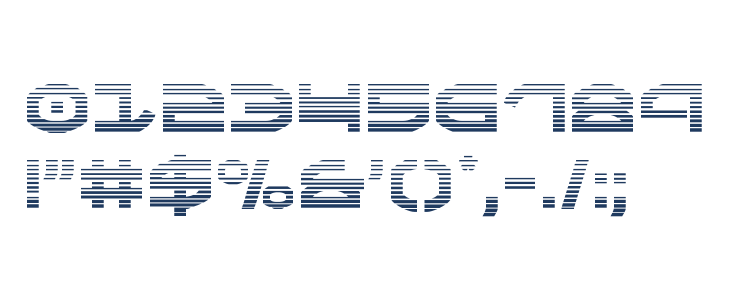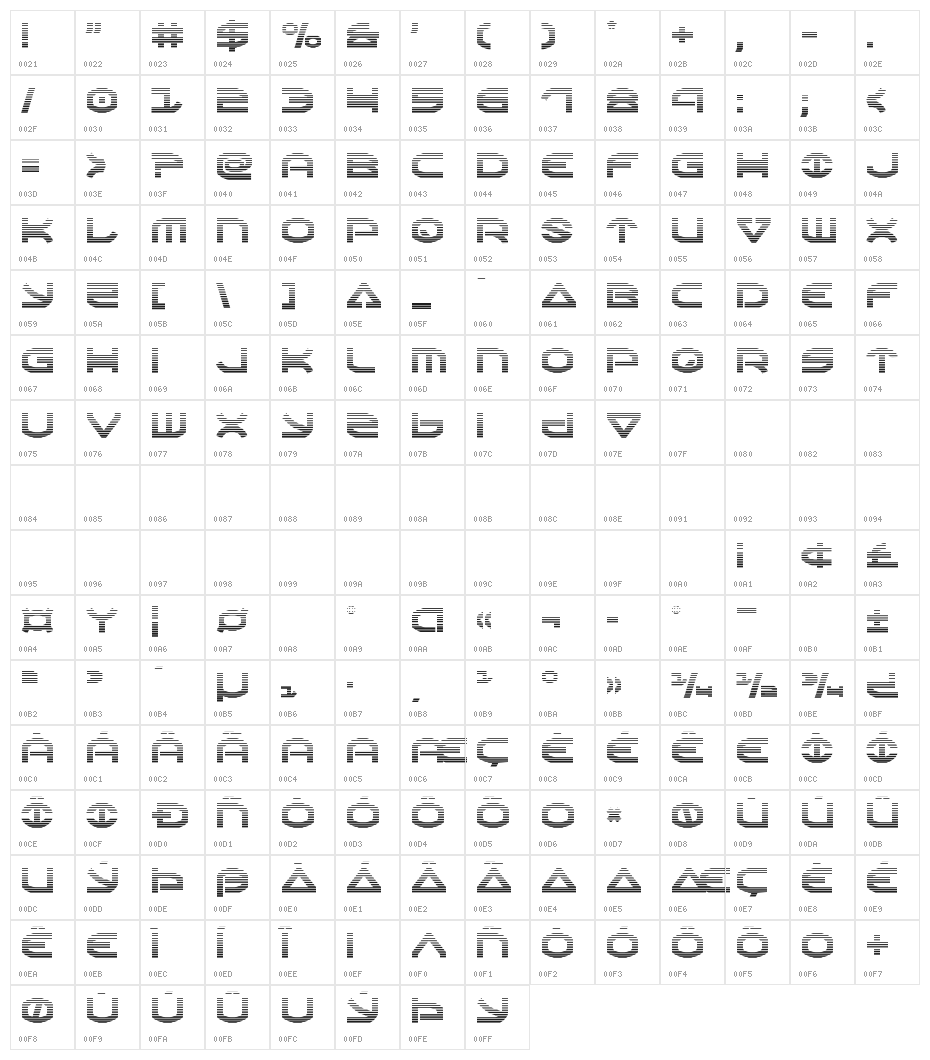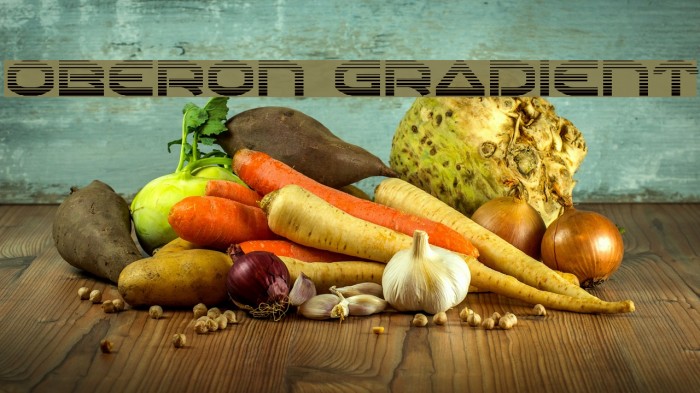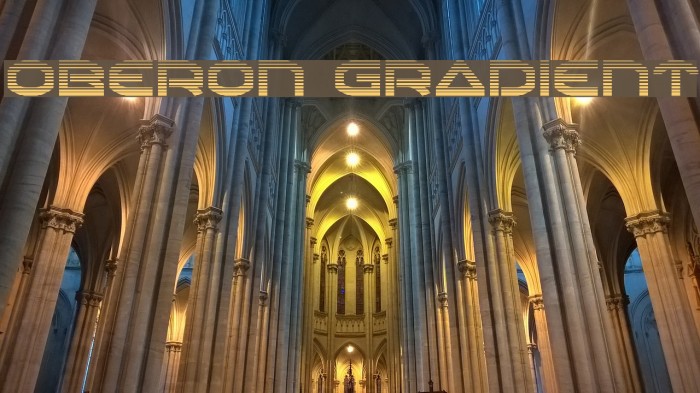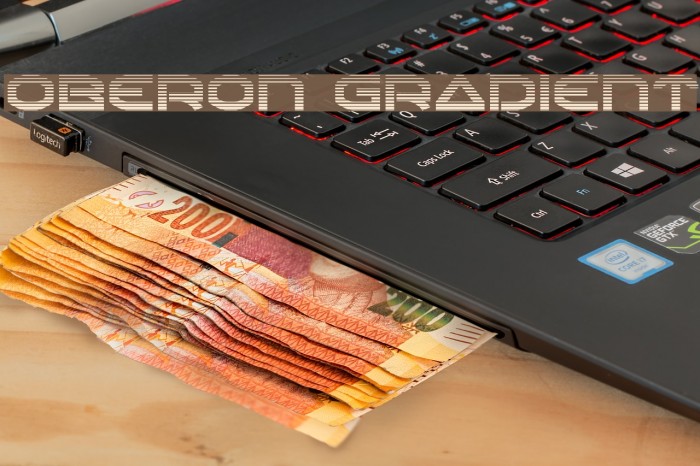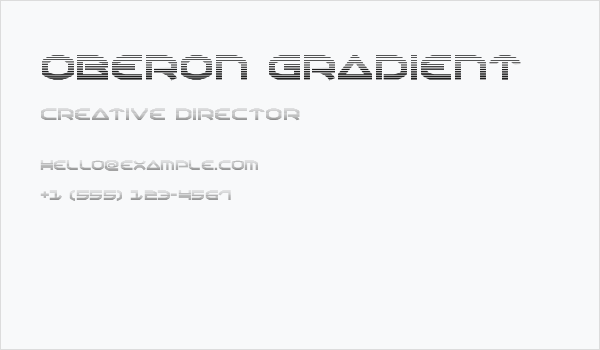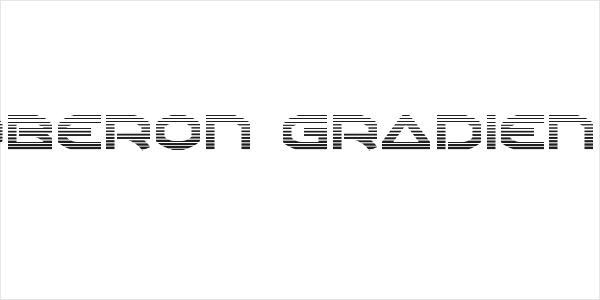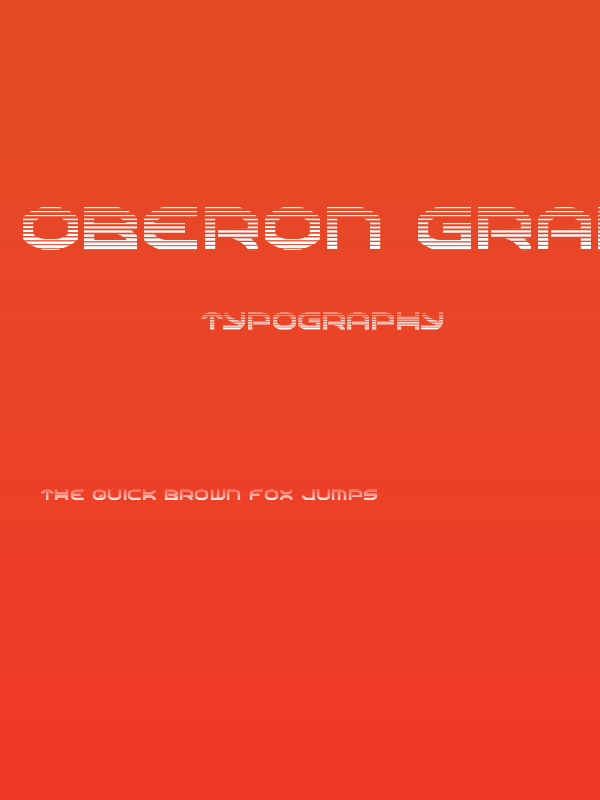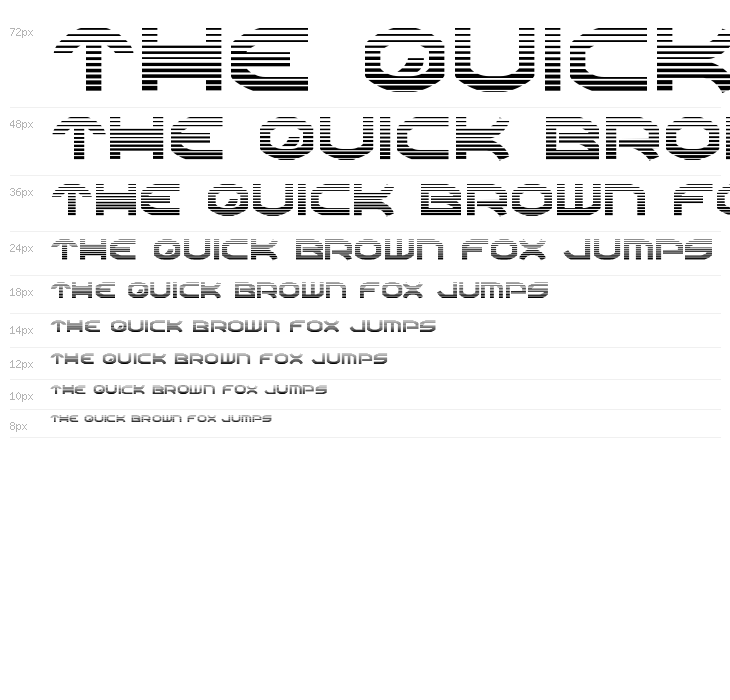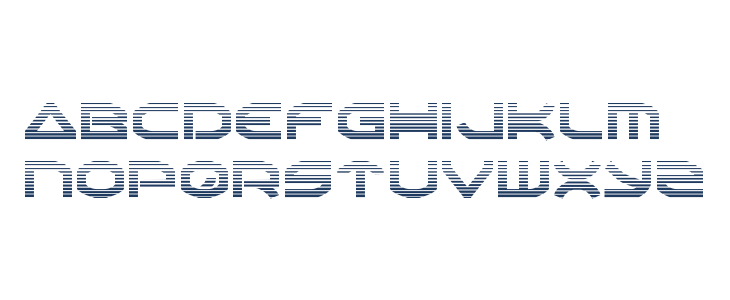
Oberon Gradient Font
Oberon Gradient Description
This font features a unique, futuristic design characterized by horizontal gradient lines that create a sense of movement and depth. The characters are bold and geometric, with a distinct separation between each line that forms the letters. This design gives the font a modern, digital appearance, making it stand out in any project. The uppercase and lowercase letters maintain a consistent style, with numbers and special characters following the same pattern. The overall look is sleek and innovative, perfect for projects that require a cutting-edge aesthetic.
| Proposed Projects | Ideal for tech-related branding, digital media, video game titles, and modern advertising campaigns. |